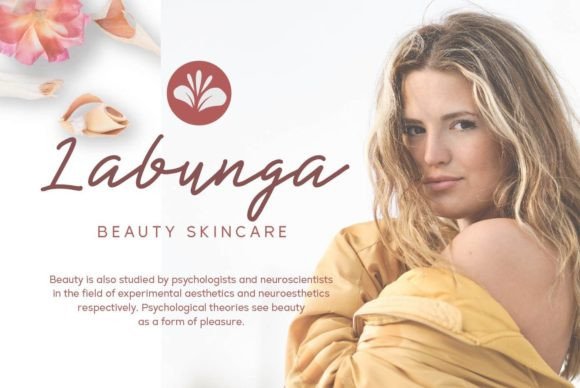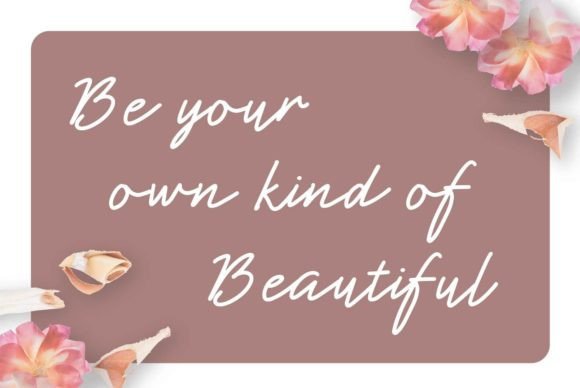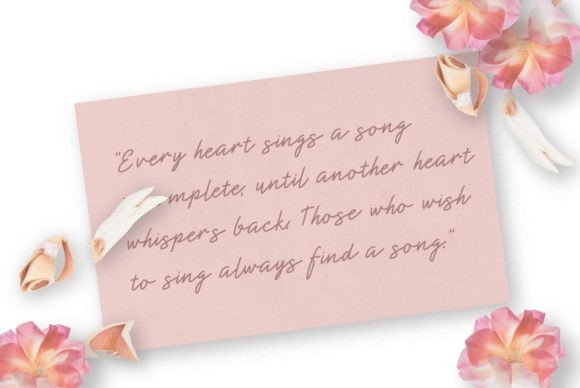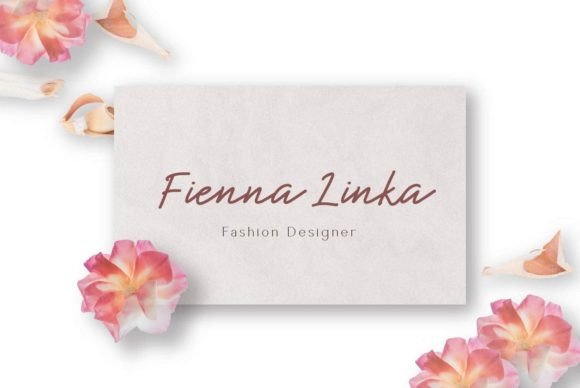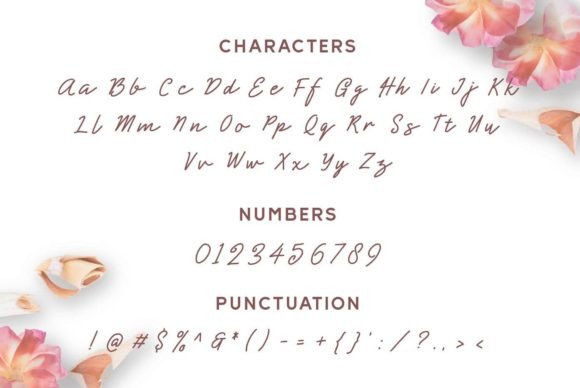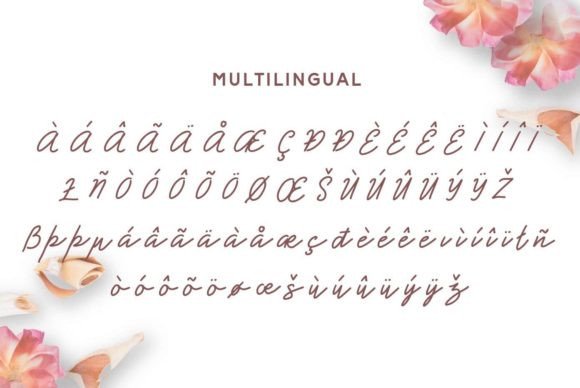
Introduction to Shearlight Font
Have you ever sat down with a blank sheet of paper and a pencil, waiting for inspiration to strike? For designers, those moments can be the most exciting – a blank slate begging to be transformed into something beautiful. And when the perfect font comes along, it’s like magic. That’s exactly what the Shearlight Font offers – a delicate and well-rounded handwritten font that adds an authentic touch to any design project.
Whether you’re working on a wedding invitation, a birthday card, or a personal branding project, the Shearlight Font is a valuable design resource that can elevate your creations to the next level. Its high quality and versatility make it perfect for a wide range of creative projects, from elegant logos to free downloads that can be used across various platforms.
Key Features of Shearlight Font
- High-quality font design ideal for creative projects requiring a modern aesthetic.
- Shearlight Font is available in a single size, making it easy to use in a variety of creative projects.
- Designed with a high resolution, ensuring crisp and clear typography even in large formats.
- Suitable for use in various design applications, including digital graphics, print materials, and web design.
Honest Review: Shearlight Font
As a designer, I’m always on the lookout for high-quality design resources to elevate my creative projects. The Shearlight Font is one such resource that caught my attention.
- Unique aesthetic: The Shearlight Font boasts a unique and modern aesthetic that can add a touch of sophistication to any design project.
- High-quality design: The font is well-designed, with smooth lines and a transparent background that makes it easy to use on various backgrounds.
- Limited font styles: The Shearlight Font only comes in a few font styles, which may limit its versatility for designers who need a wide range of options.
- Not suitable for all designs: The font’s unique aesthetic may not be suitable for all design projects, particularly those that require a more traditional or conservative look.
Overall, the Shearlight Font is a solid addition to any designer’s toolkit. While it may have some limitations, its high-quality design and free download make it a great choice for creative projects that require a modern and sophisticated look.
Shearlight Font
The Shearlight Font is a high-quality design resource ideal for creative projects. Its transparent background makes it a versatile choice for various applications.
Tips for Getting the Most Out of Shearlight Font
For optimal results, use the Shearlight Font in conjunction with high-quality images and a transparent background.
The Shearlight Font is ideal for:
Designing digital products.
Creating social media graphics.
Developing marketing materials.